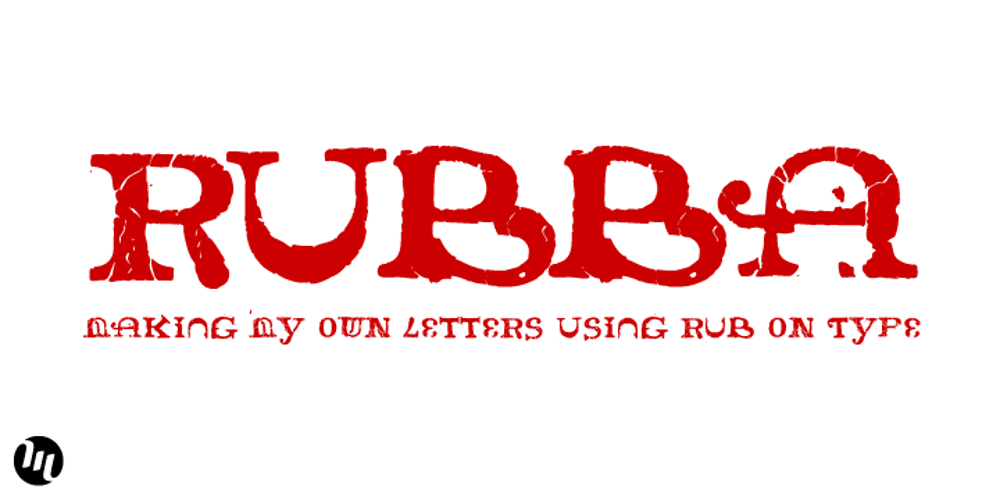
Rubba Font Family was designed by Matthew Aaron Desmond and published by MADType. Rubba contains 1 styles and family package options. Rubba was created using rub-on type to create completely new letterforms from the bits of others.